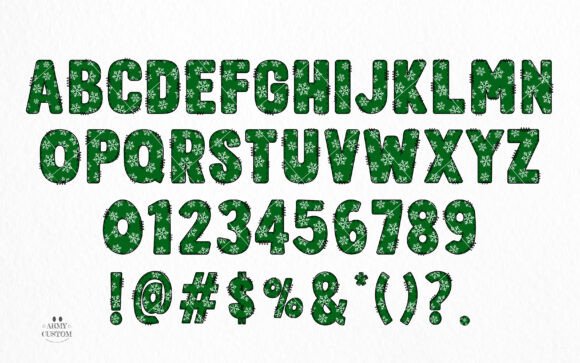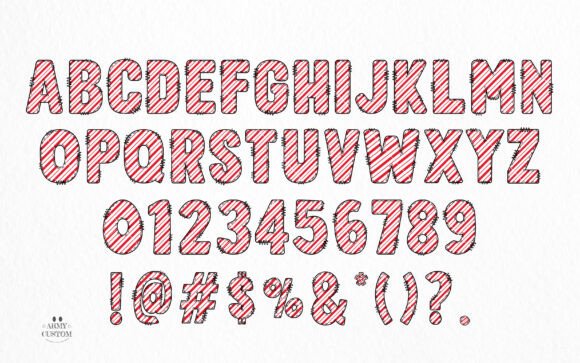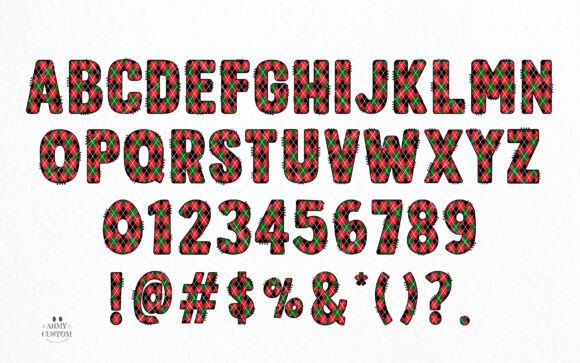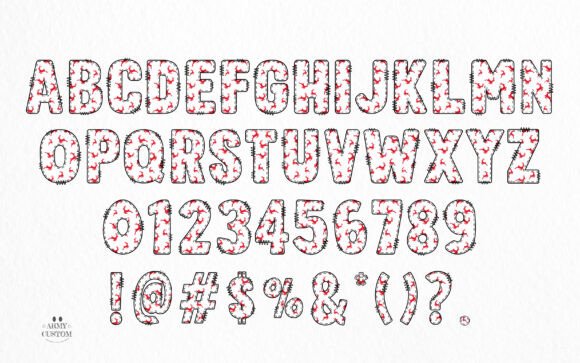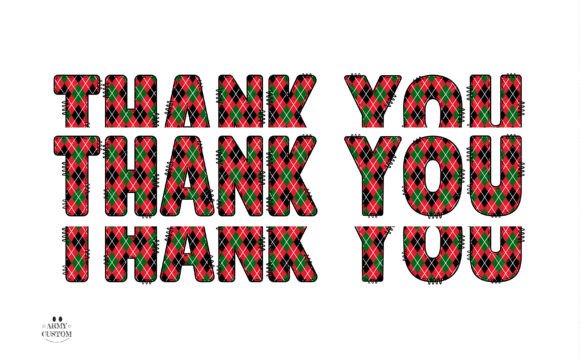
Introducing the Christmas Army Bundle Font: A Whimsical Addition to Your Holiday Design Toolkit
Are you looking for a font that captures the essence of the holiday season? Look no further than the Christmas Army Bundle Font! This delightful font is designed to bring a sense of whimsy and playfulness to your festive projects. With its jovial style, it’s the perfect choice for creating vibrant holiday decorations or adding a dash of merriment to any design project.
Inspired by the Adorable Antics of Santa’s Helpers
The Christmas Army Bundle Font is inspired by the adorable antics of Santa’s helpers, also known as elves. Every letter spelled out with this font becomes a joyous celebration, perfect for spreading holiday cheer. Whether you’re a designer, crafter, or simply someone who loves the holiday season, this font is sure to put a smile on your face.
Whether you’re a professional designer or a crafter, the Christmas Army Bundle Font is a great addition to your holiday design toolkit. With its playful and whimsical style, it’s perfect for creating:
- Holiday decorations, such as signs, banners, and garlands
- Festive cards and invitations
- Digital papers and printable art
- And much more!
Tips and Tricks for Using the Christmas Army Bundle Font
Here are a few tips and tricks for getting the most out of the Christmas Army Bundle Font:
- Use the font to create custom holiday gifts, such as personalized ornaments or decorations
- Combine the font with other holiday-themed graphics and illustrations to create unique and eye-catching designs
- Don’t be afraid to get creative and try new things – the Christmas Army Bundle Font is designed to be fun and playful!
The Christmas Army Bundle Font is a delightful addition to any holiday design toolkit. With its whimsical and playful style, it’s perfect for creating vibrant holiday decorations, festive cards and invitations, and more. Whether you’re a designer, crafter, or simply someone who loves the holiday season, this font is sure to bring a sense of joy and merriment to your projects.